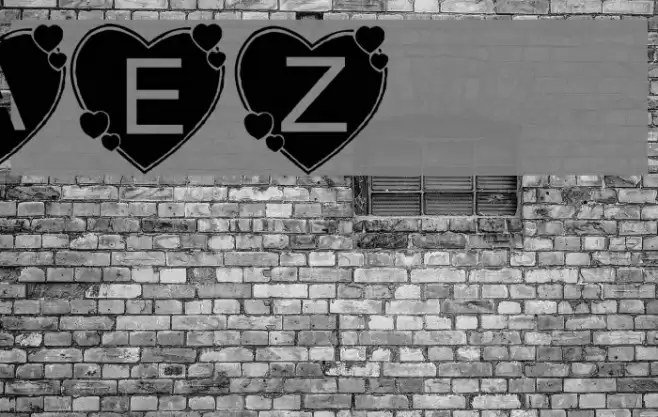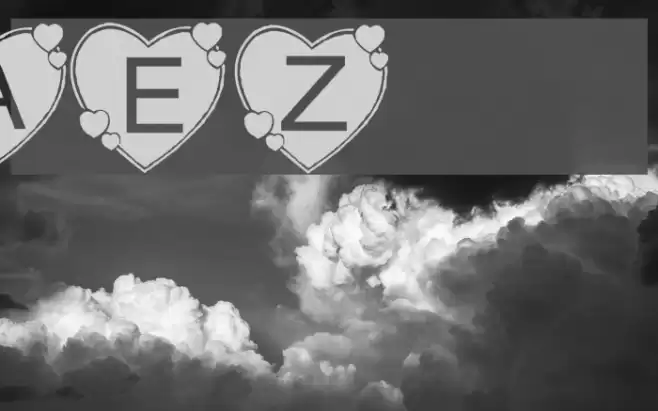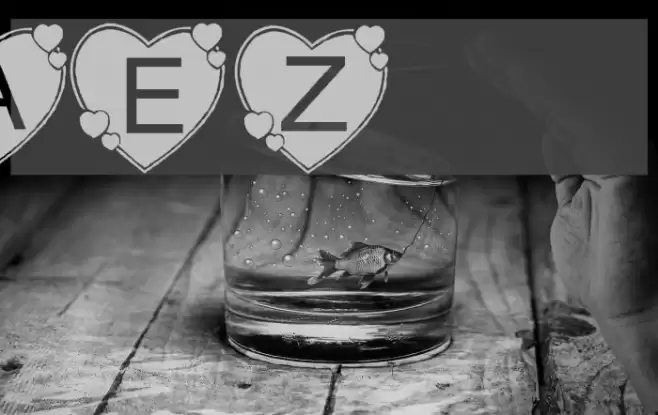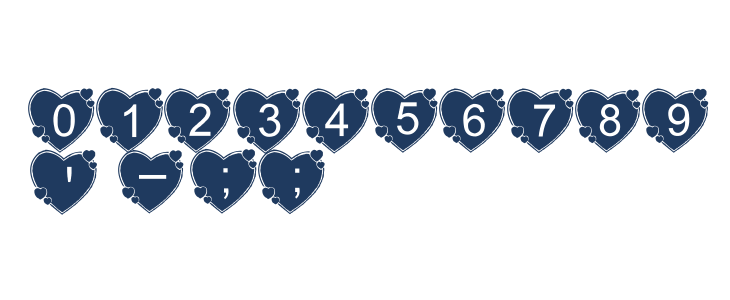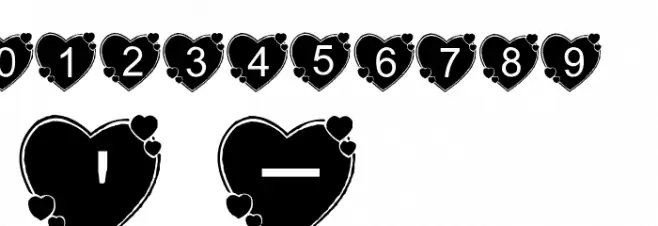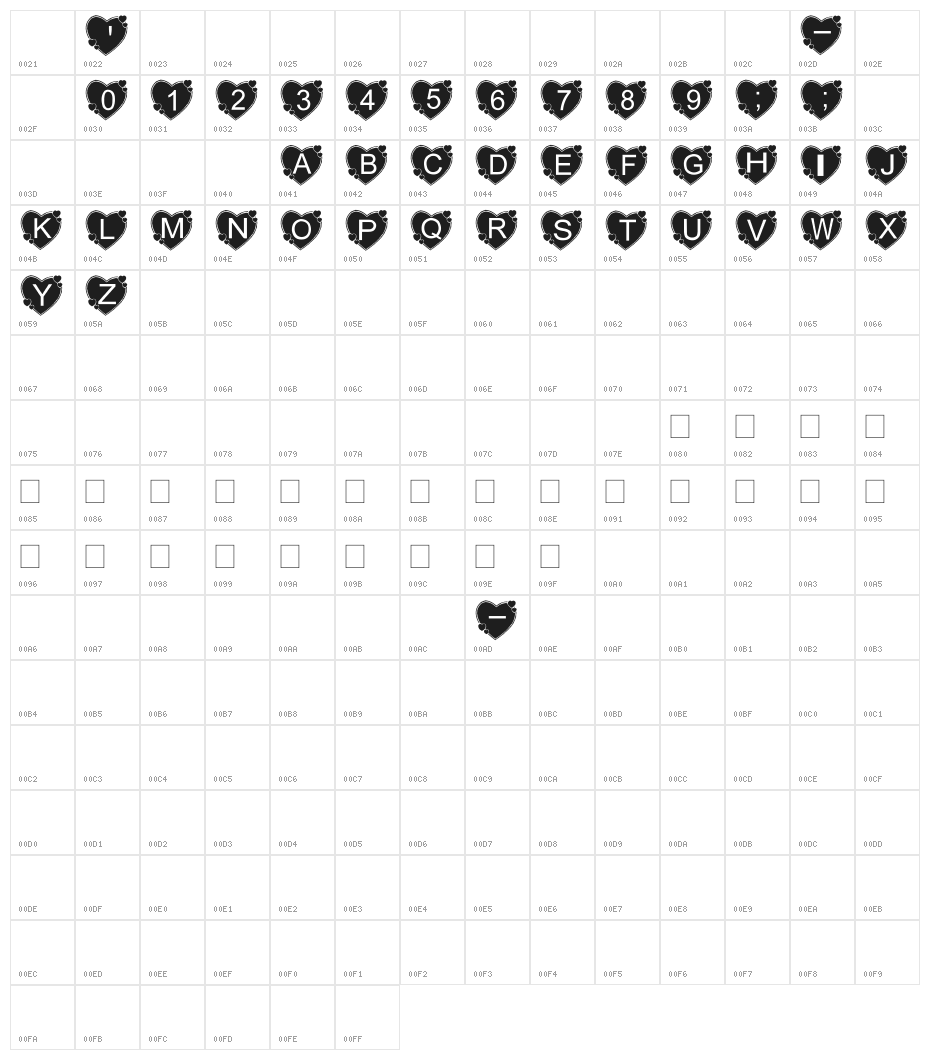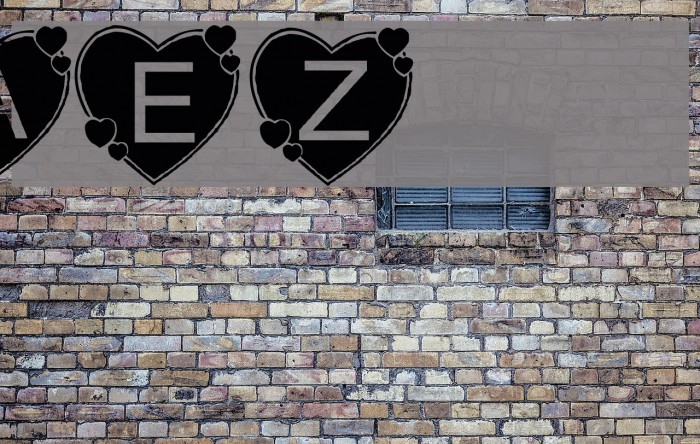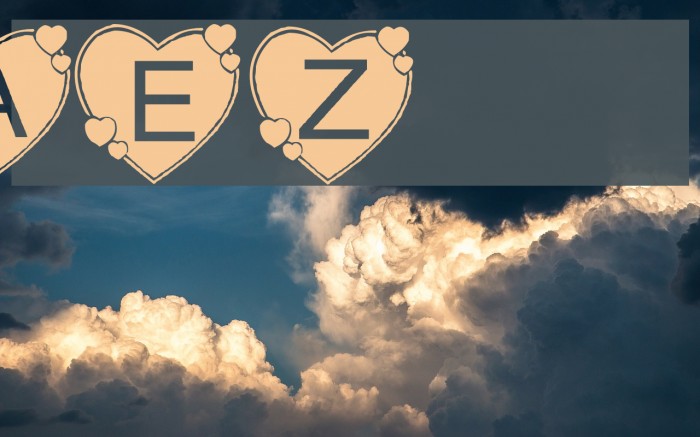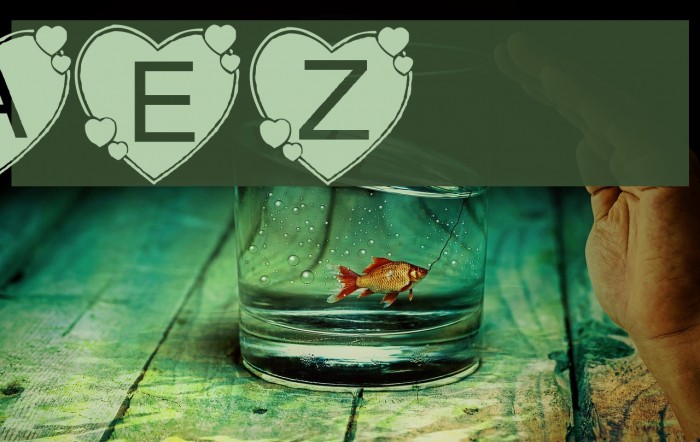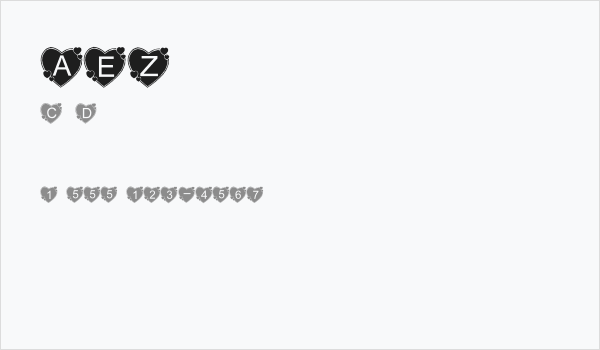
AEZbighearts Font
AEZbighearts Description
This playful and decorative font features each character encased within a heart shape, adding a whimsical and romantic touch to the text. The letters and numbers are bold and clearly legible, making them stand out against the heart-shaped background. The design includes small decorative elements around the hearts, enhancing the overall charm and appeal. This font is perfect for projects that require a fun and loving aesthetic, such as Valentine's Day cards, wedding invitations, or any design that aims to convey warmth and affection.
A decorative font with characters encased in heart shapes, ideal for romantic themes from Uncategorized fonts.
- Proposed Projects: Valentine's Day cards, wedding invitations, love-themed posters, children's party invitations.
- Use Case: Headlines, Logos, Invitations